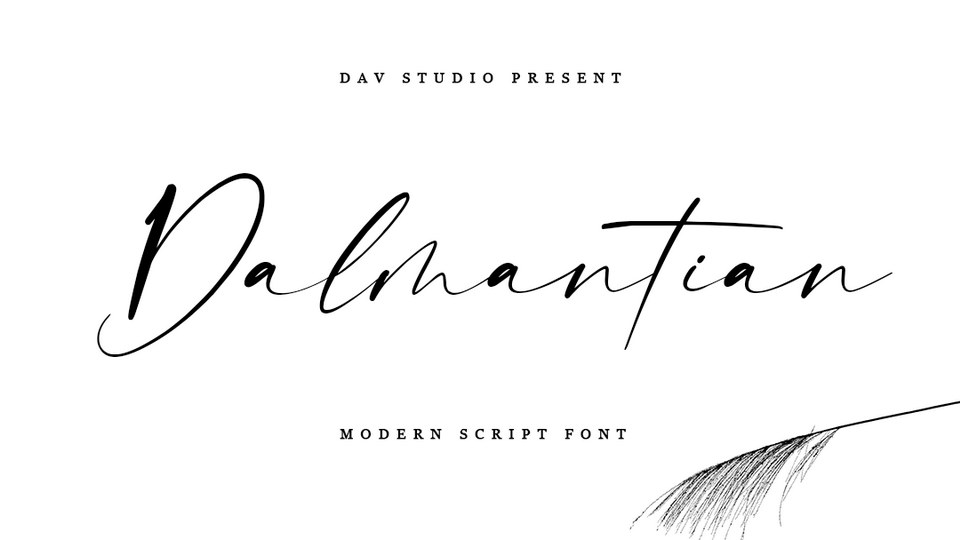
Download Dalmantian font, a stylish signature script with a modern twist. Dalmantian is very suitable for all kinds of crafts, mockups, logos, business cards, invitation cards, and more.
Designer: Dav Studio